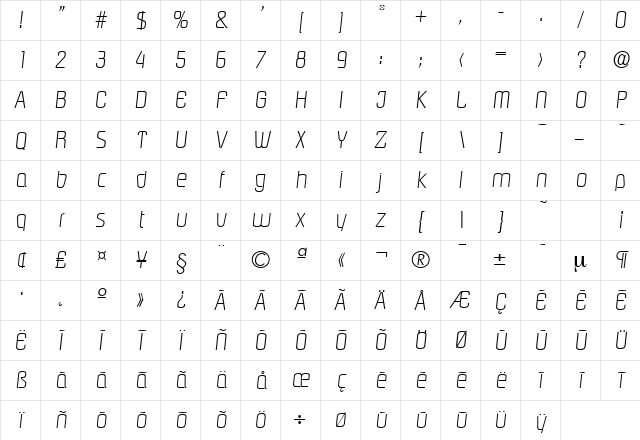
Pasadena-Serial-ExtraLight RegularItalic Free Font
Pasadena-Serial-ExtraLight RegularItalic
Style: RegularItalic
Pasadena-Serial-ExtraLight Family
Pasadena-Serial-ExtraLight RegularItalic
Complete Pasadena-Serial-ExtraLight RegularItalic glyph index. Displaying only characters natively supported by Pasadena-Serial-ExtraLight RegularItalic font.
Design Context for Pasadena-Serial-ExtraLight
Pasadena-Serial-ExtraLight is a composed and adaptable typeface that performs quietly and consistently across a wide range of design contexts. The slanted form adds forward momentum and visual energy. Its slender proportions lend an understated elegance to any composition.
Pro Tip: Use Pasadena-Serial-ExtraLight for emphasis, pull quotes, and subheadings where its slanted energy can add rhythm to the layout.